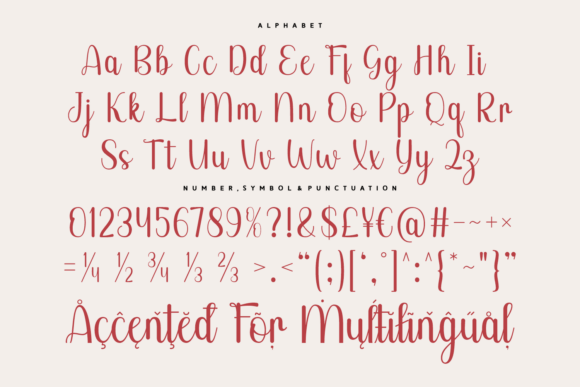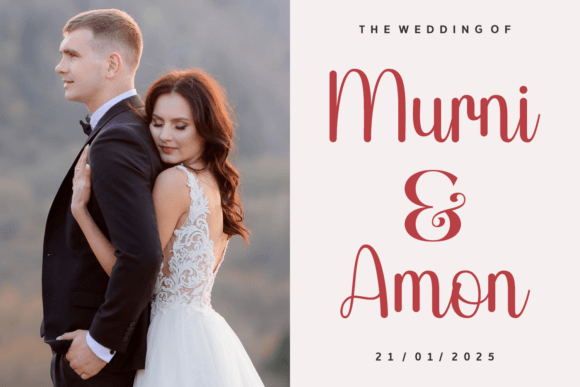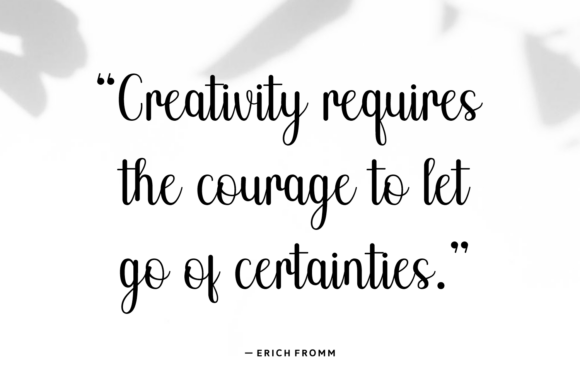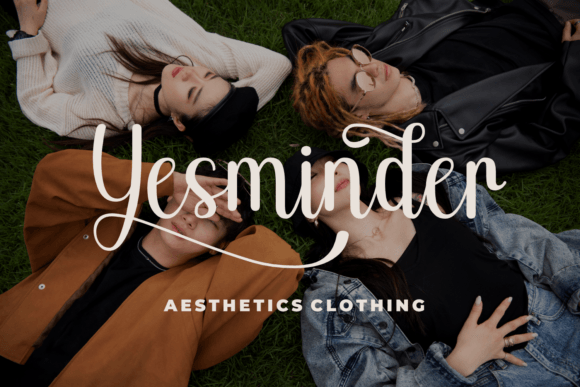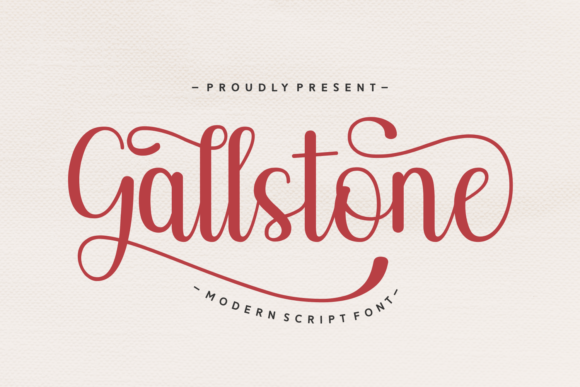
Gallstone Font: Elevate Your Designs with Elegance and Sophistication
In the world of typography, fonts play a crucial role in conveying the tone and personality of a design. For designers and crafters seeking to add a touch of luxury and refinement to their projects, Gallstone Font is an exceptional choice. This modern script font boasts bold strokes, elegant swashes, and stylish curves that exude confidence and sophistication.
The Characteristics of Gallstone Font
Gallstone Font is a versatile typeface that combines modernity with classic elegance. Its key features include:
• Bold Strokes: Gallstone’s bold strokes provide a sense of confidence and strength, making it perfect for headlines, titles, and emphasis.
• Elegant Swashes: The font’s elegant swashes add a touch of sophistication and refinement, ideal for creating luxurious and high-end designs.
• Stylish Curves: Gallstone’s stylish curves bring a sense of fluidity and movement to your designs, making it perfect for logos, branding, and creative projects.
Gallstone Font’s versatility makes it suitable for a wide range of design applications, including:
• Logos and Branding: Create a lasting impression with Gallstone’s bold and elegant design, perfect for luxury brands, high-end products, and services.
• Wedding Invitations: Add a touch of sophistication and romance to your wedding invitations, save-the-dates, and other stationery.
• Product Packaging: Elevate your product packaging with Gallstone’s refined design, ideal for luxury goods, cosmetics, and high-end products.
• Digital and Print Media: Use Gallstone Font for social media graphics, advertisements, and editorial design to add a touch of elegance and sophistication.
Why Choose Gallstone Font?
With Gallstone Font, you can:
• Add a Refined Touch: Bring a sense of luxury and refinement to your designs with Gallstone’s elegant and sophisticated design.
• Stand Out from the Crowd: Gallstone’s unique and stylish curves make it perfect for designers and crafters seeking to create distinctive and memorable designs.
• Enhance Your Brand: Use Gallstone Font to create a consistent and cohesive brand identity that exudes confidence and sophistication.
Tips for Using Gallstone Font
To get the most out of Gallstone Font, consider the following tips:
• Pair with Neutral Fonts: Combine Gallstone Font with neutral fonts to create a balanced and harmonious design.
• Experiment with Swashes: Take advantage of Gallstone’s elegant swashes to add a touch of sophistication and elegance to your designs.
• Use for Headlines and Titles: Gallstone Font is perfect for headlines and titles, where its bold strokes and elegant design can make a lasting impression.
Gallstone Font is an exceptional choice for designers and crafters seeking to add a touch of luxury and refinement to their projects. With its bold strokes, elegant swashes, and stylish curves, this modern script font is perfect for a wide range of design applications. Whether you’re creating logos, branding, wedding invitations, or product packaging, Gallstone Font is sure to elevate your designs with elegance and sophistication.